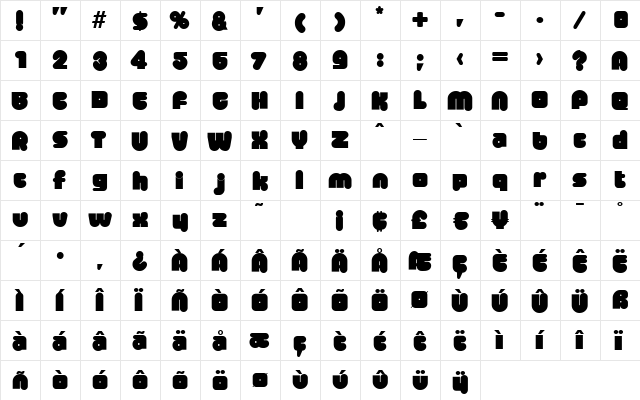
M730-Deco Bold
Design Context for M730-Deco Typeface
M730-Deco is a composed and adaptable typeface that performs quietly and consistently across a wide range of design contexts. The heavy weight commands attention and anchors typographic hierarchies.